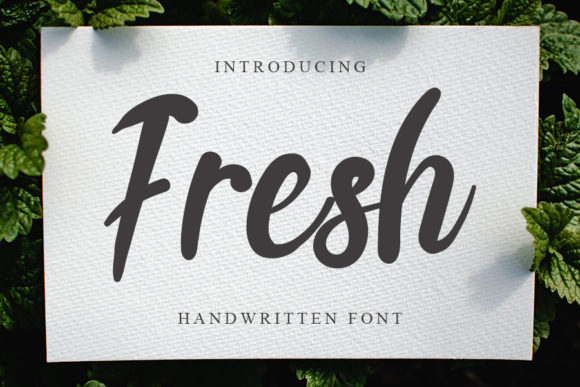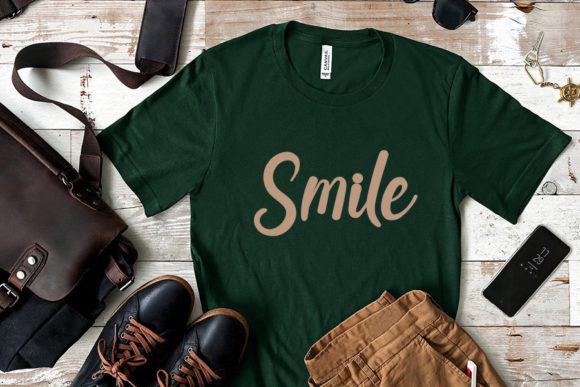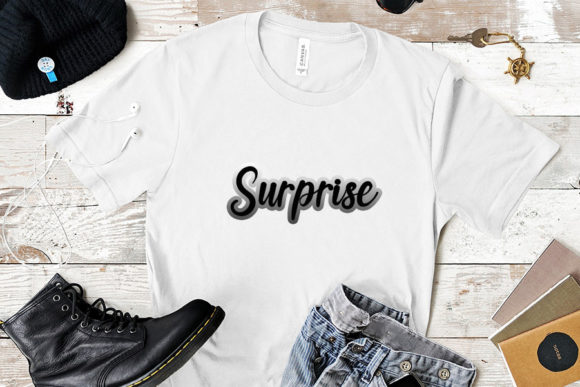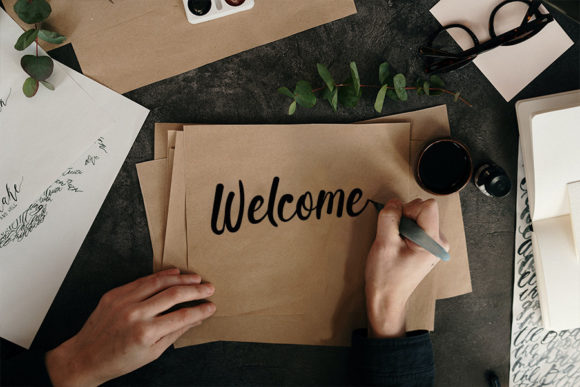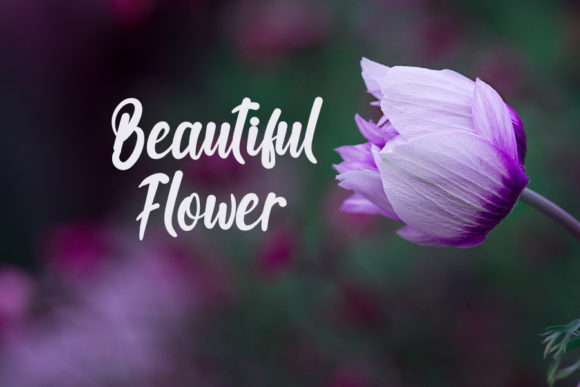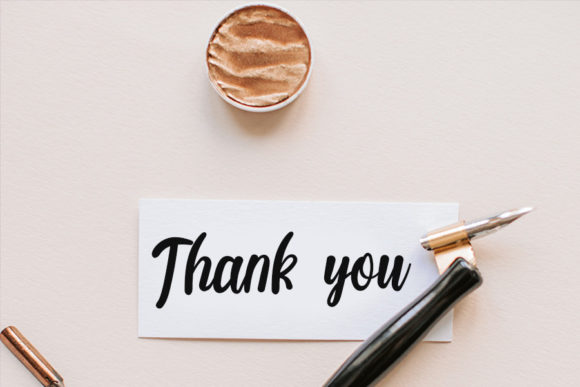
Fresh Font
About Fresh Font
Fresh is a stylish and modern handwritten font that brings a contemporary vibe to classic calligraphy inspiration. Its clean and balanced form, along with its versatile design, make it an excellent choice for a wide range of creative projects.
With its modern vibe and spotless strokes, Fresh font adds a touch of sophistication and trendiness to any design. The font strikes a balance between being not too thin and not too thick, making it visually appealing and readable in various contexts.
One of the notable features of Fresh font is its versatility. It can be used for a variety of design purposes, from branding and logo creation to digital designs and printed materials. Its modern flair makes it particularly suitable for projects that require a sleek and contemporary aesthetic.
In branding, Fresh font can help create a unique and memorable visual identity. Whether it’s for a startup, a product line, or an established business seeking a fresh look, the font’s modern and balanced form can contribute to a distinctive brand image.
When applied to digital designs such as websites, social media graphics, and online ads, Fresh font maintains its elegance and readability. Its clean and varied strokes ensure that the text remains visually appealing on digital platforms, catching the viewer’s eye while delivering the intended message effectively.
For printed materials like posters, flyers, and invitations, Fresh font’s cool handwritten style adds a personal and unique touch. Its modern calligraphy-inspired design can set your designs apart and make them stand out in a visually appealing way.
Incorporating Fresh font into various projects, whether for headings, titles, quotes, or other text elements, can elevate the overall aesthetics. Its balance between modernity and classic calligraphy creates a harmonious and stylish appearance that resonates with a contemporary audience.
Overall, Fresh is a versatile and stylish font that offers a modern twist on classic calligraphy. Its spotless form, modern vibe, and adaptability make it an asset for designers aiming to enhance the beauty and appeal of their projects, across both digital and print platforms.